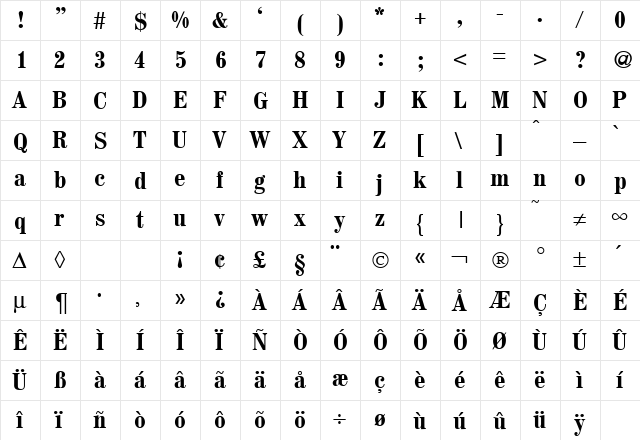
MagazineCond Bold
Design Context for MagazineCond Typeface
MagazineCond is a composed and adaptable typeface that performs quietly and consistently across a wide range of design contexts. Its bold stroke weight gives it real presence on the page. Its narrow stance lets it pack a punch even in space-constrained designs.
Pro Tip: Pair MagazineCond with a font of contrasting weight or personality to build a more expressive typographic hierarchy.